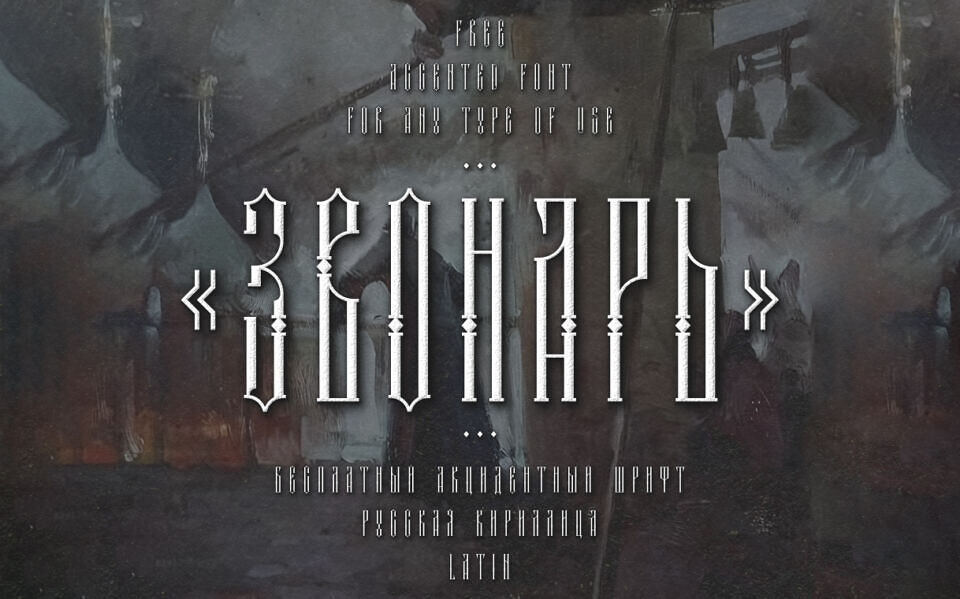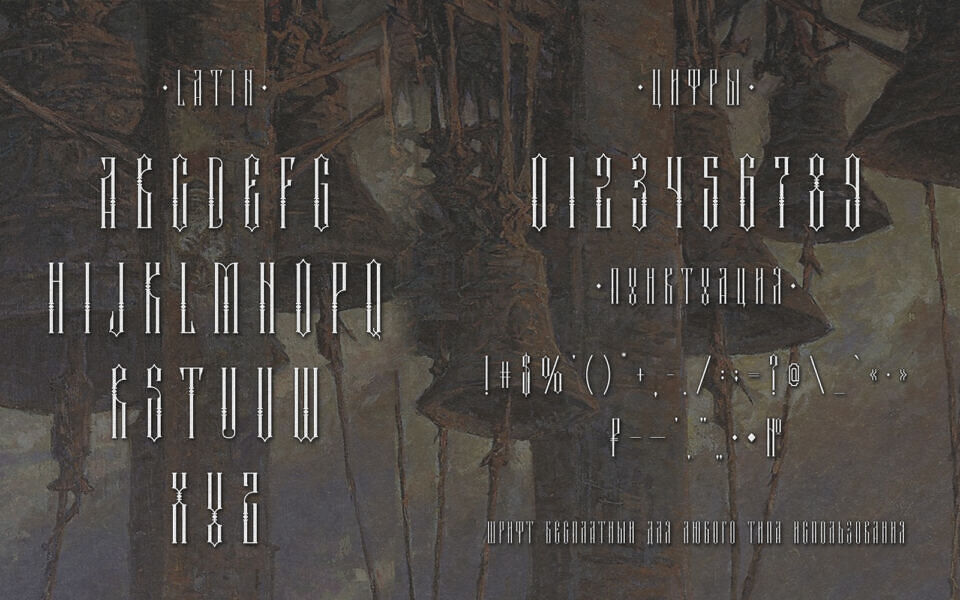
TD Zvonar is a fancy display typeface that captures the spirit and mystique of ancient Russia. Its tall, decorative shapes draw inspiration from Orthodox bell towers and early Slavic carvings, merging Gothic structure with Eastern spirituality.
With its elegant rhythm and intricate serifs, the font echoes the deep resonance of church bells — grand, solemn, and enduring. Supporting both Cyrillic and Latin scripts, TD Zvonar preserves its commanding aura across languages, making it ideal for posters, period designs, and cinematic titles that demand tradition and power.